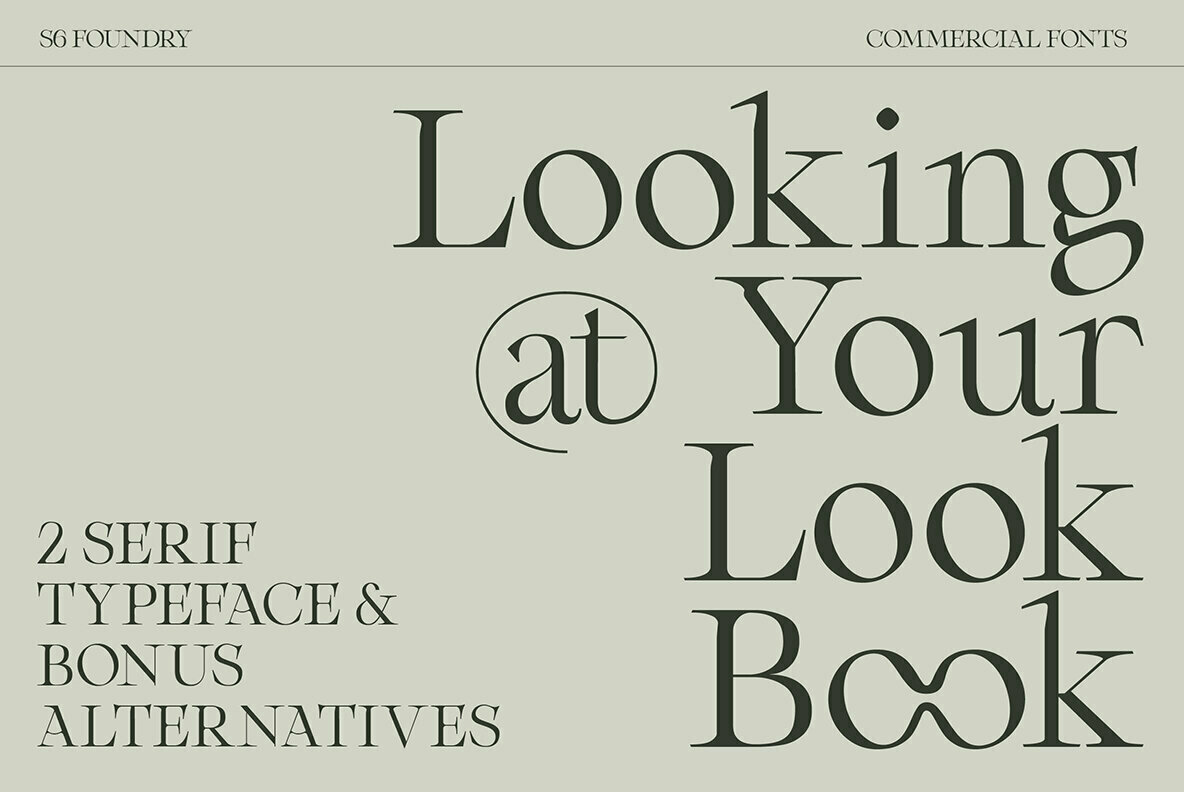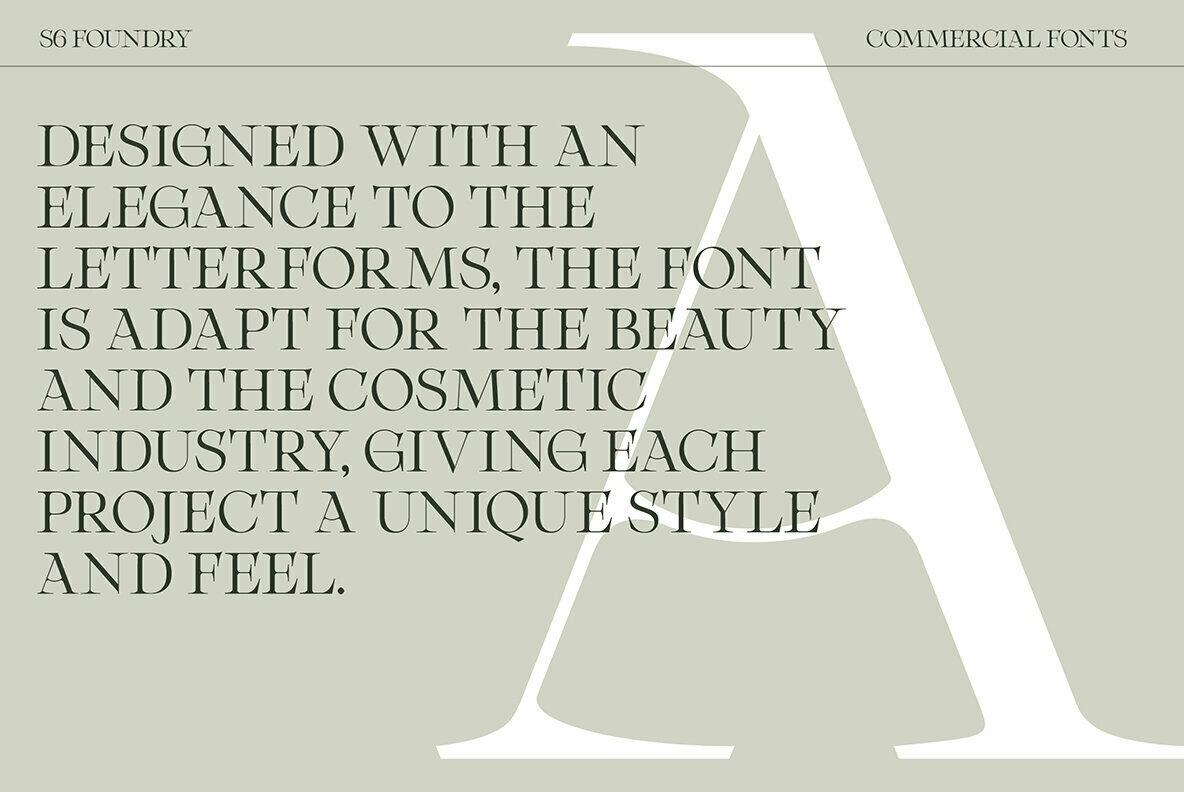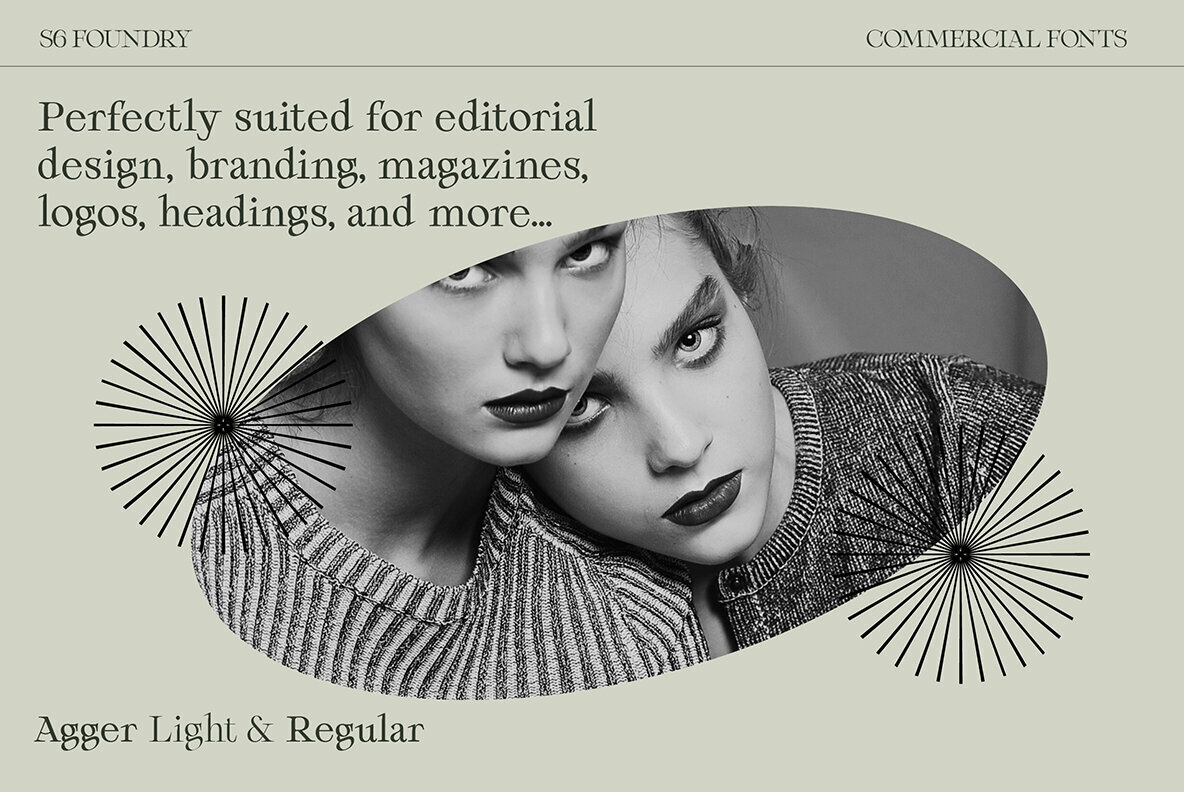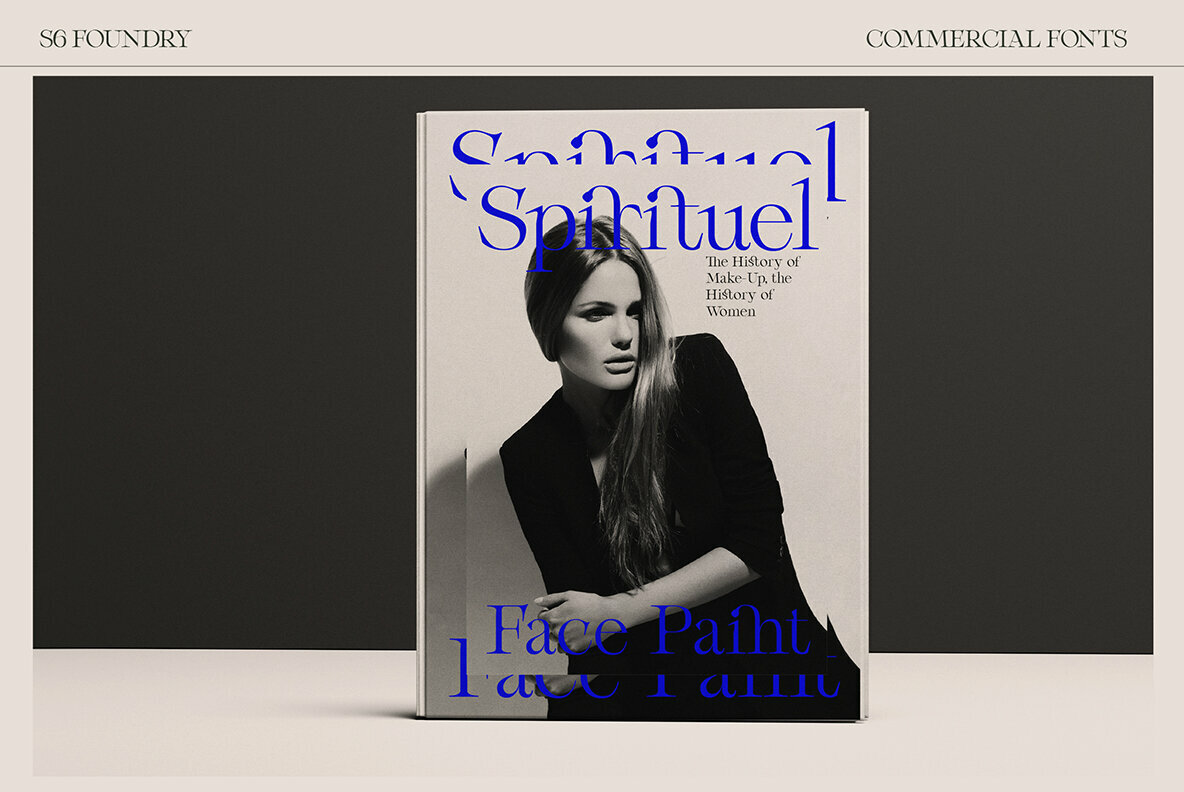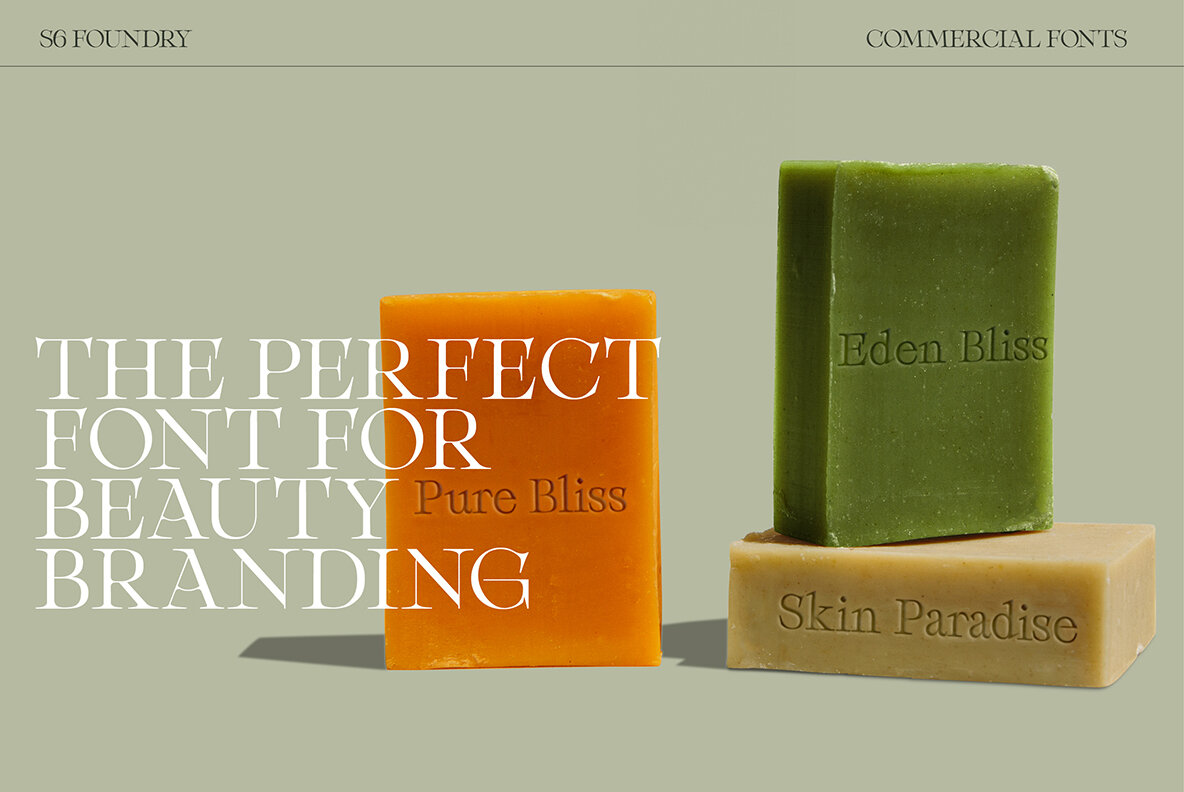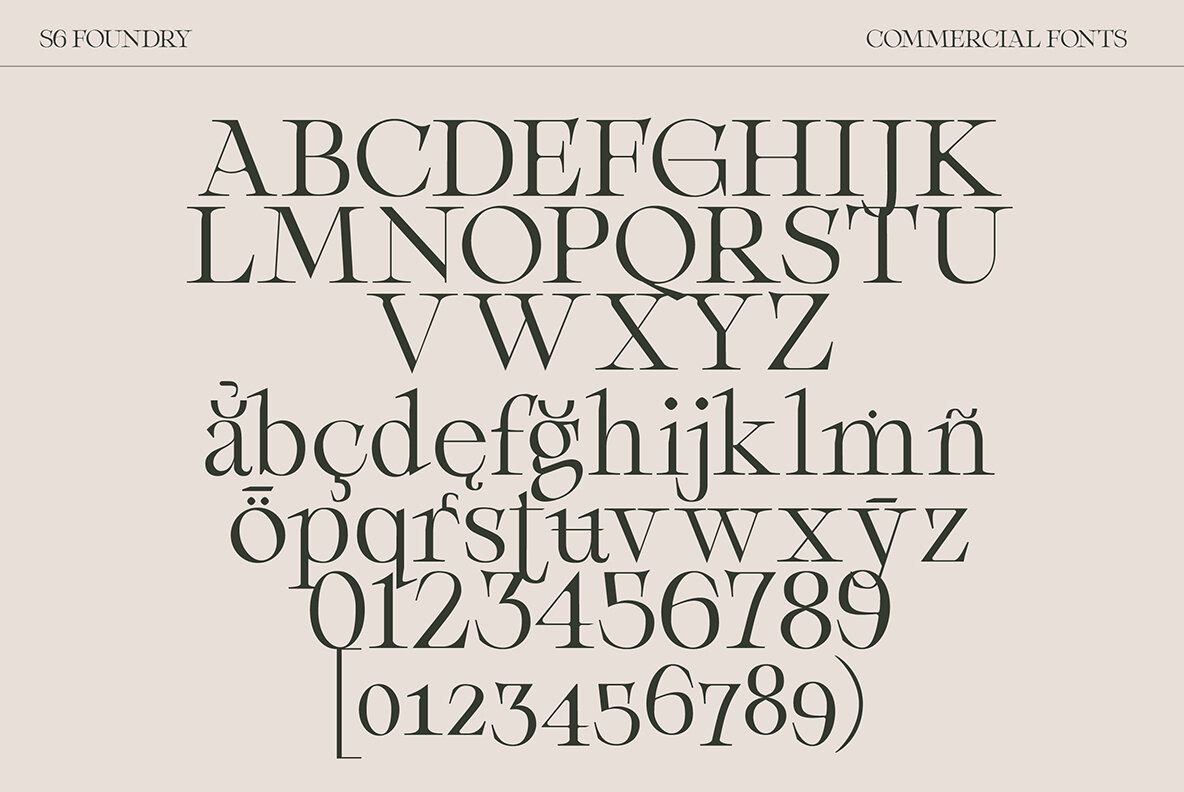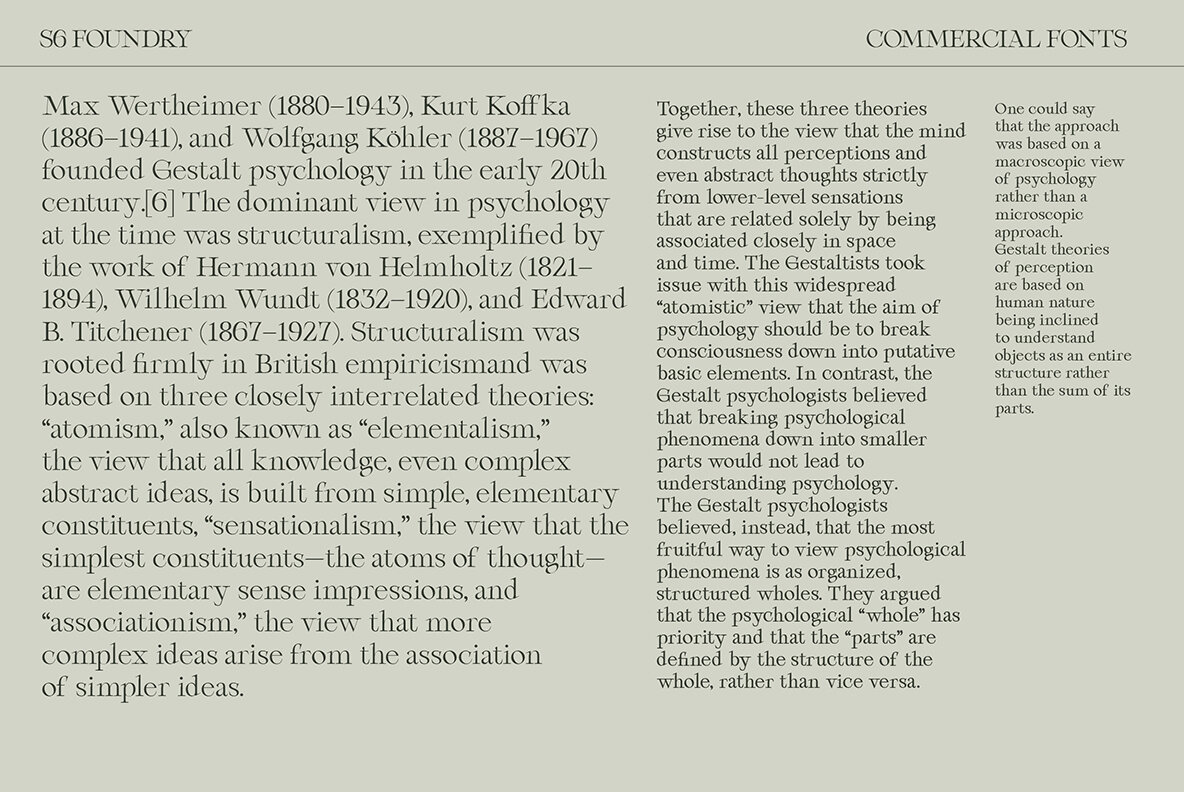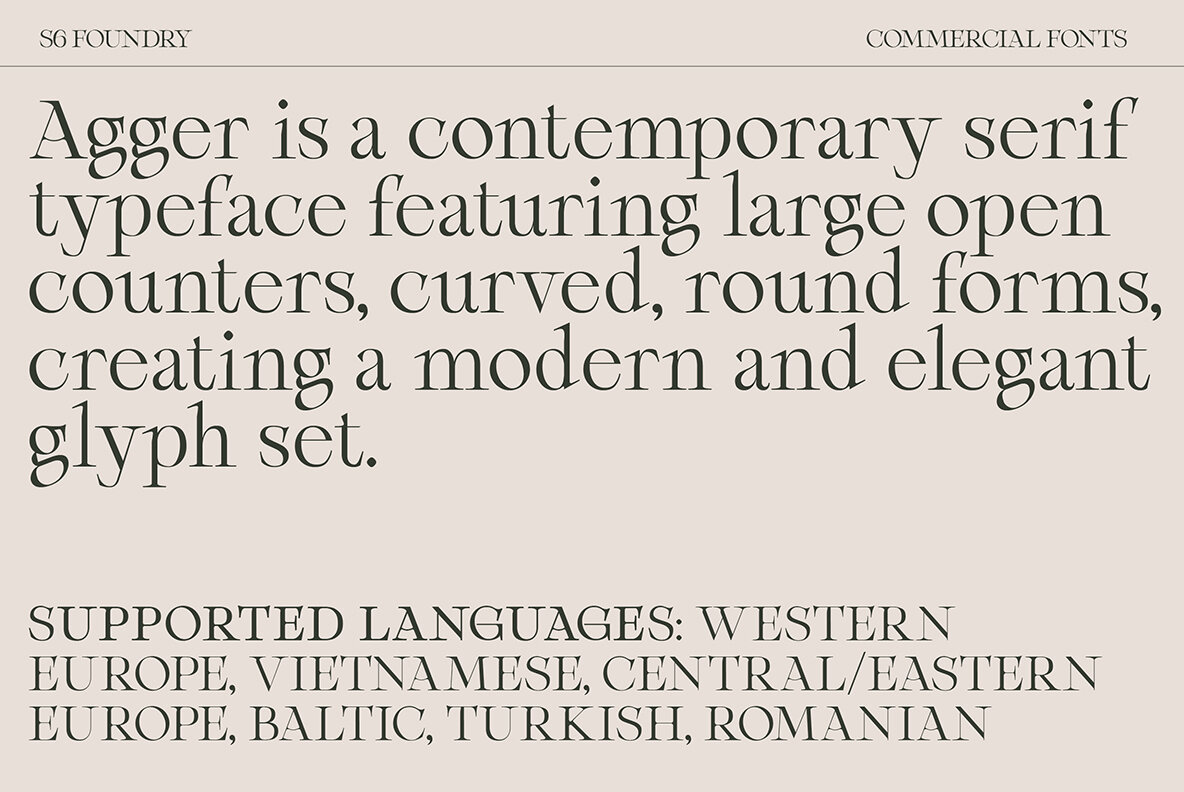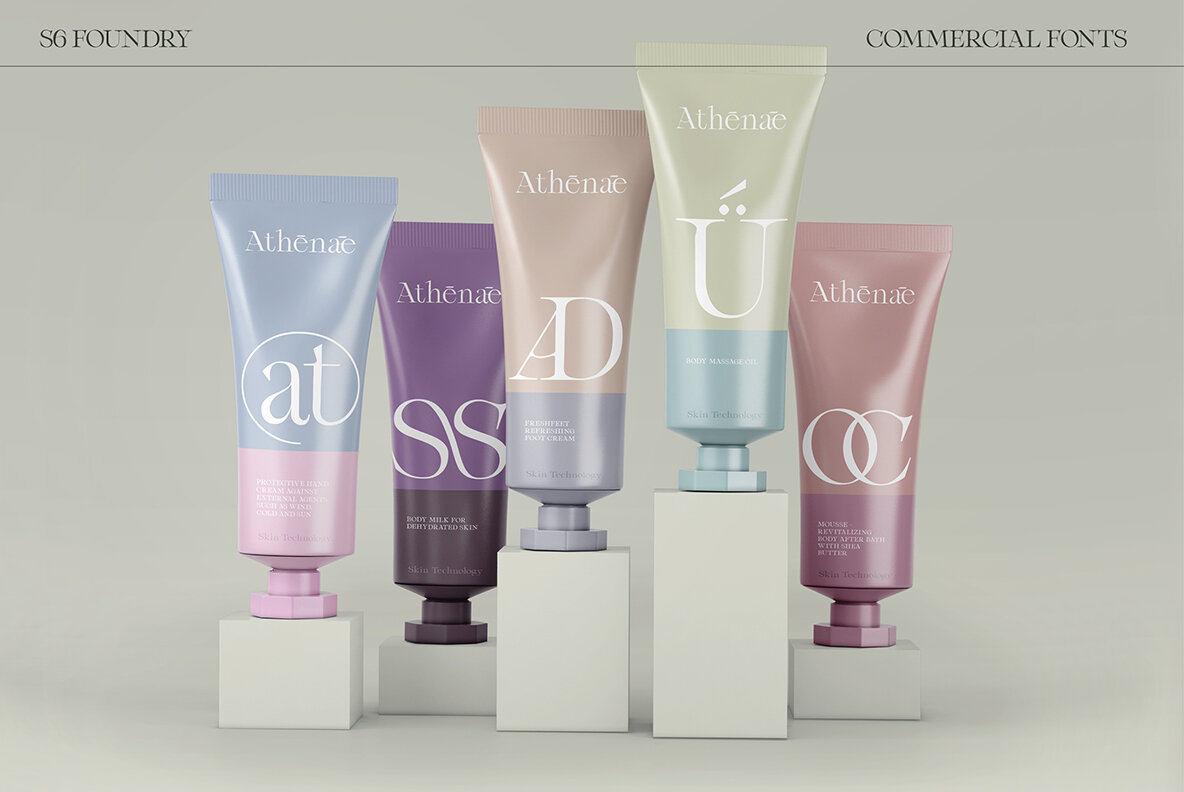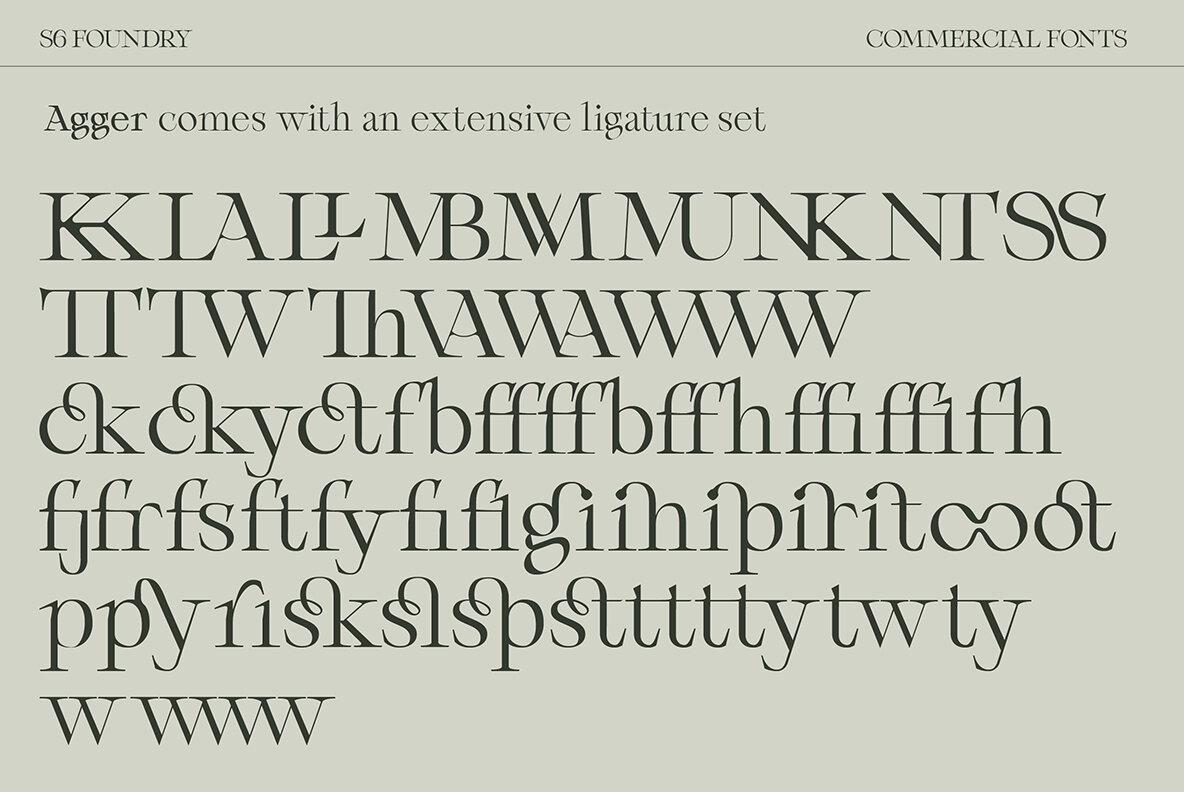
Agger Font
Agger Serif Light
Agger Serif Regular
Agger is a contemporary serif typeface featuring large open counters, curved, round forms, creating a modern and elegant glyph set. The extreme contrast between thick and thin strokes gives Agger a harmonic and stylish look. Designed with an elegance to the letterforms, the font is adapt for the beauty and the cosmetic industry, giving each project a unique style and feel.
Agger is perfectly suited for headlines, large-format prints, brand identities, social media, advertising, editorial design, posters, magazines, logos, headings, and more.
The Agger family includes two weights, Light and Regular
- Multi-language support Western, Central, South Eastern, South American, Oceanian, Pan African, Vietnamese, and Sámi.
- OpenType features (fractions, ligatures & chains)